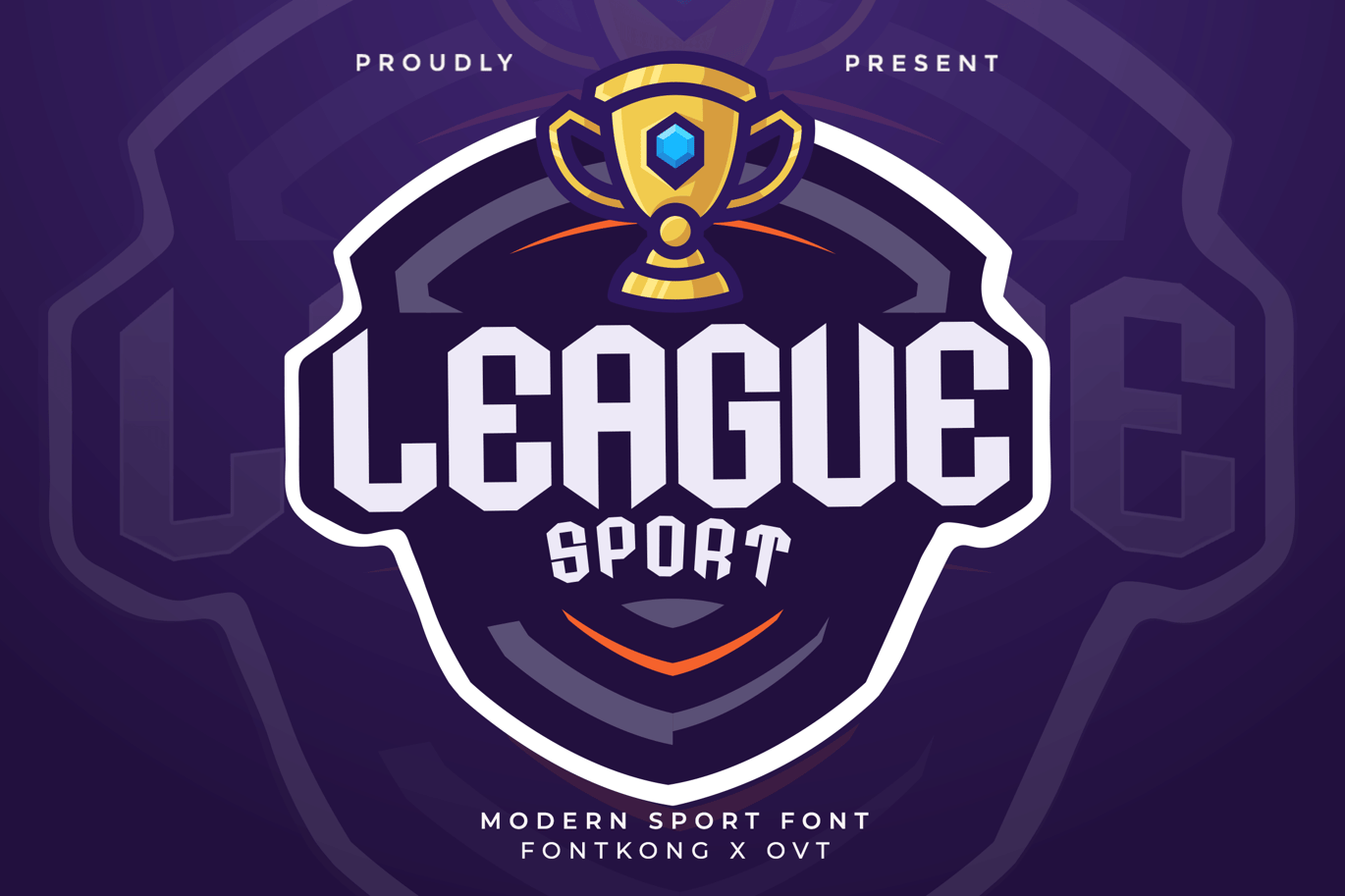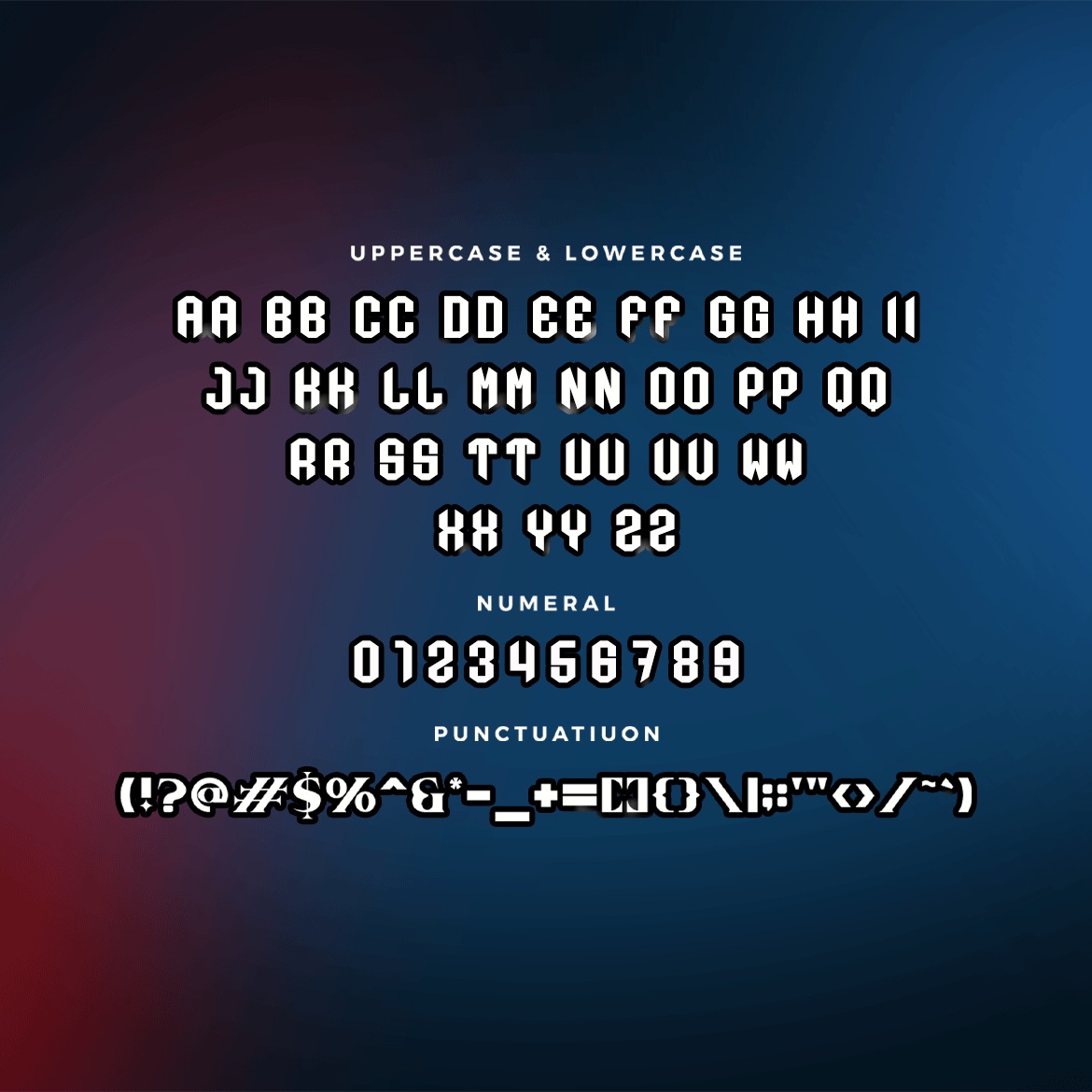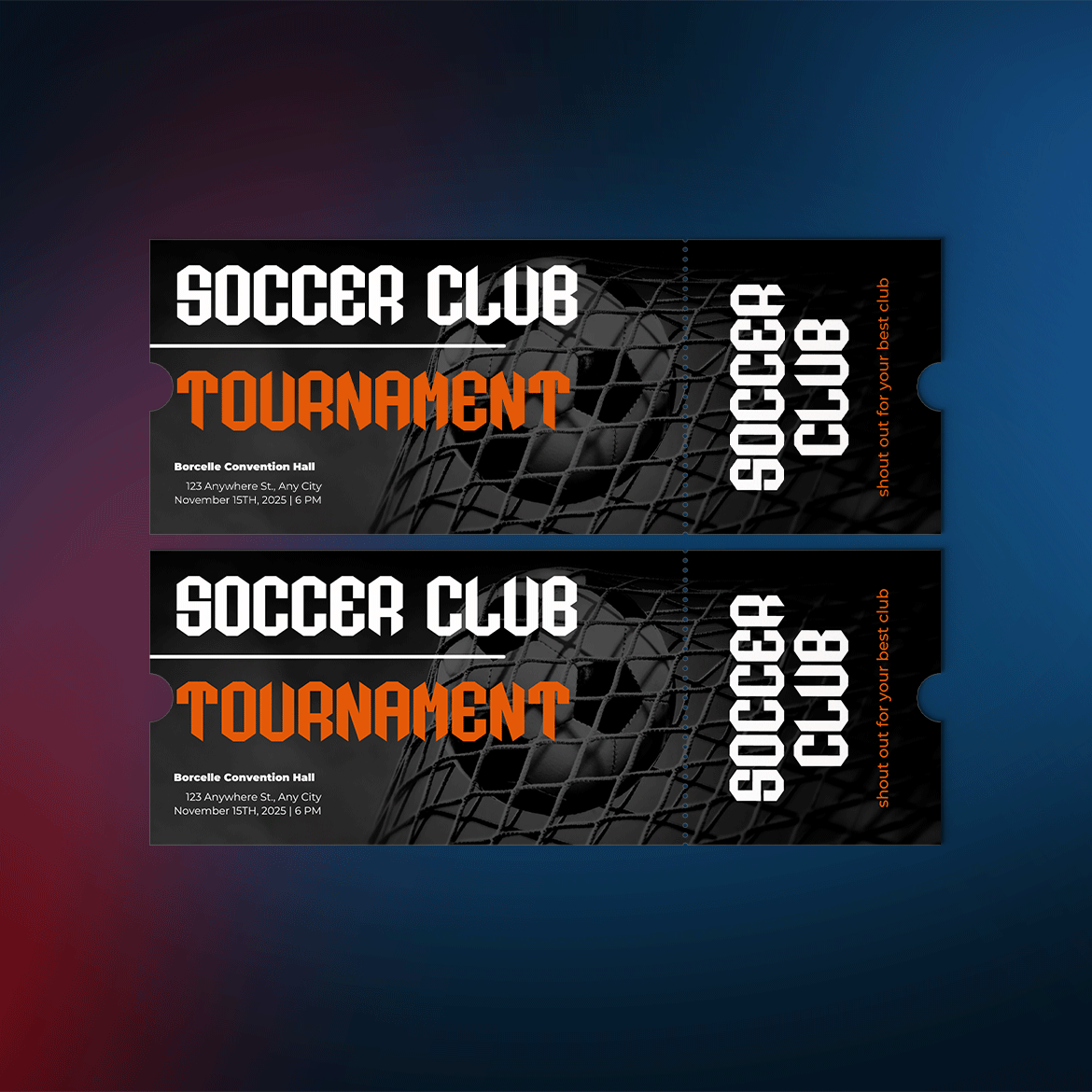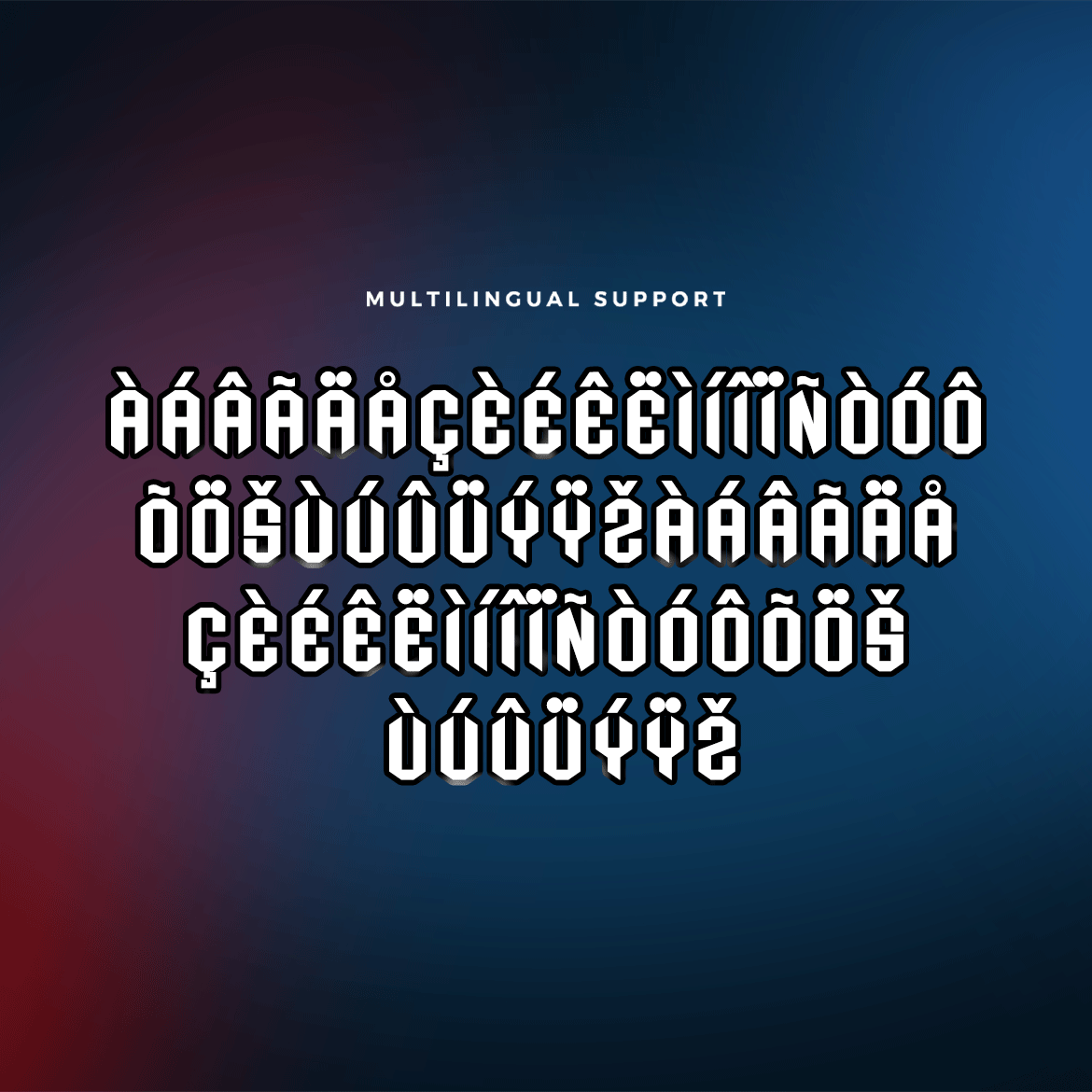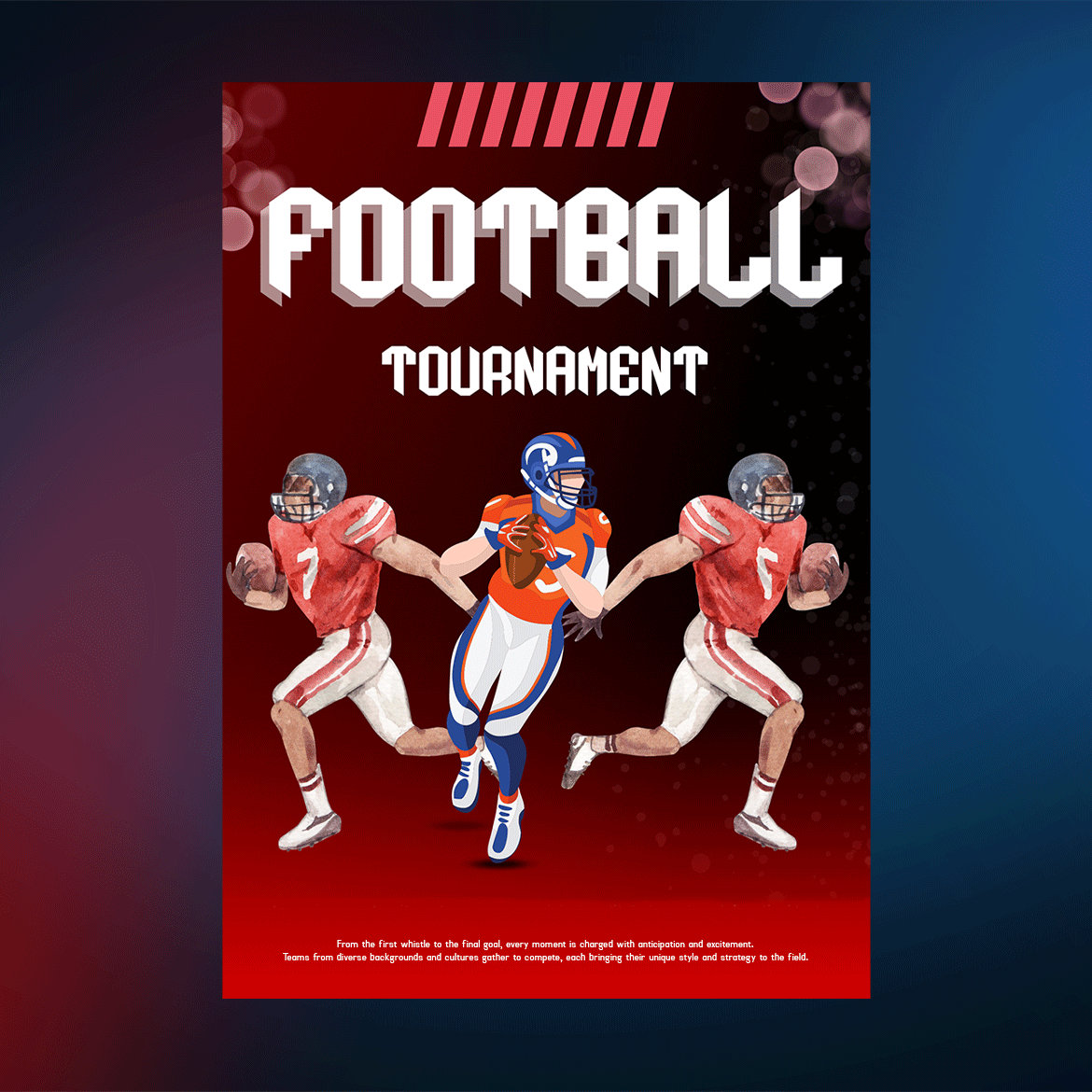
League Sport – Modern Varsity Font
Introducing “League Sport,” a modern varsity font designed to bring a dynamic and athletic edge to your projects. With its bold and confident letterforms, League Sport embodies the spirit of sportsmanship and team pride, making it perfect for sports-related designs and beyond.
Ideal for a wide range of applications, League Sport excels in creating striking team logos, eye-catching posters, engaging social media graphics, and powerful branding materials. Its versatile design ensures it stands out in both digital and print formats, capturing attention with its strong and distinctive look.
League Sport includes a full set of uppercase and lowercase letters, numerals, punctuation marks, and special characters, providing comprehensive support for all your creative needs. Its modern yet timeless appeal makes it a go-to choice for designers seeking to infuse their projects with energy and professionalism.
Elevate your designs with the robust and dynamic style of League Sport, and let your work shine with the essence of athletic excellence.